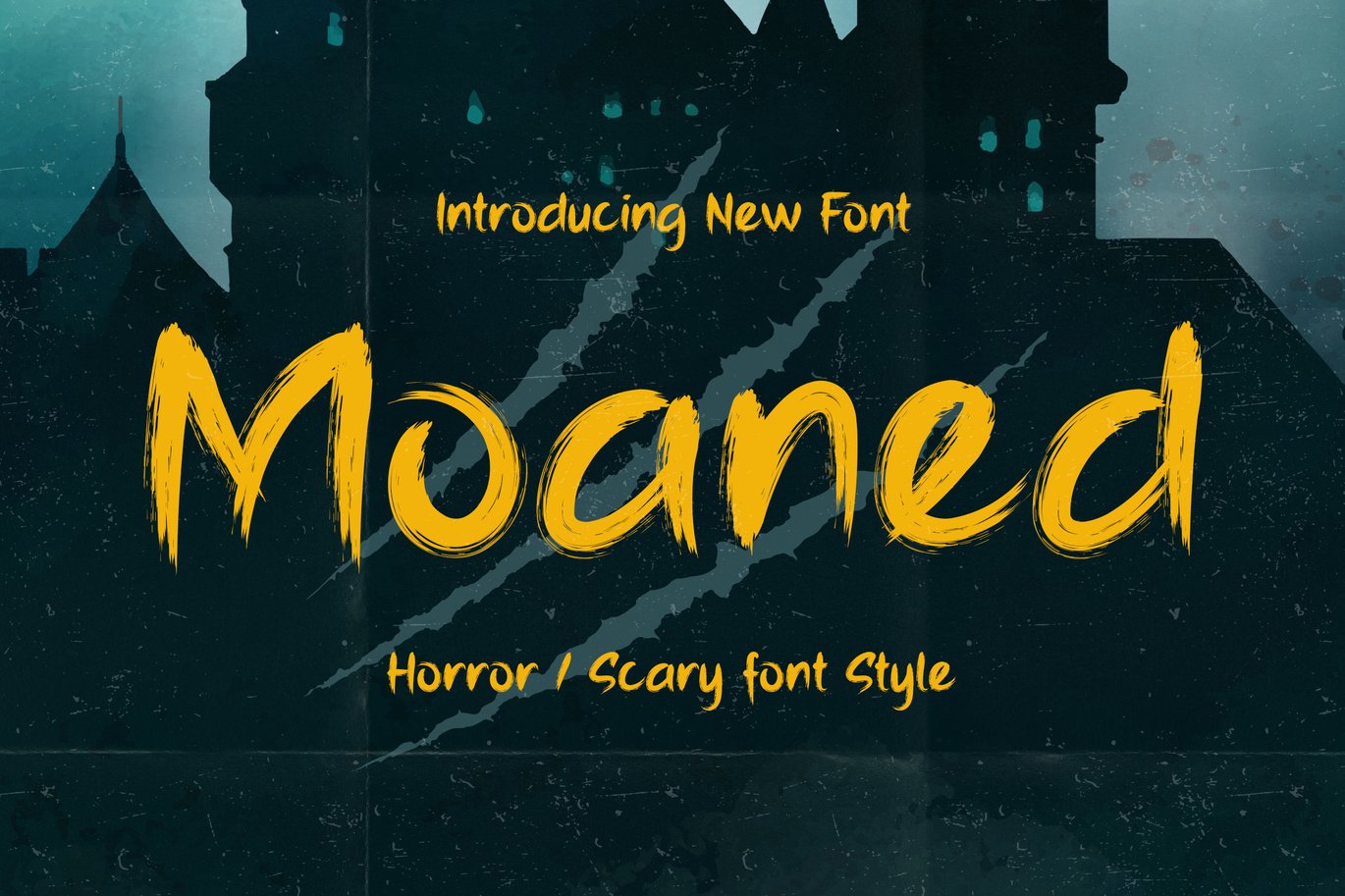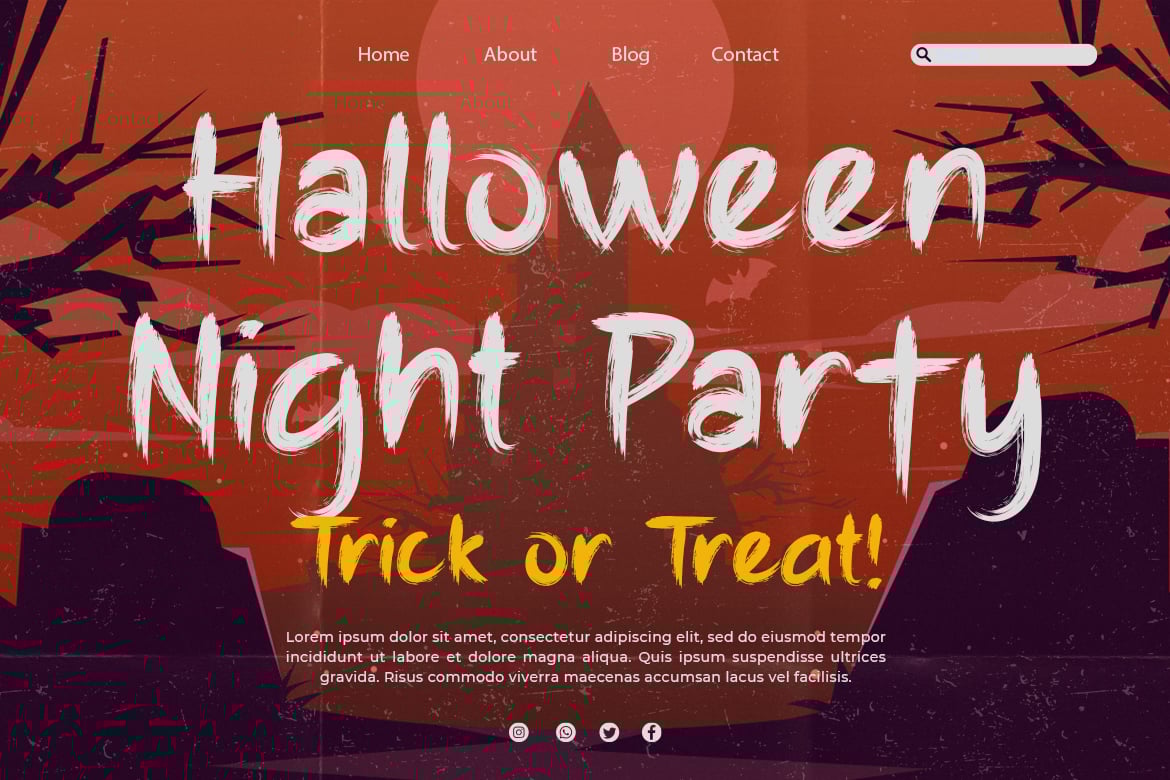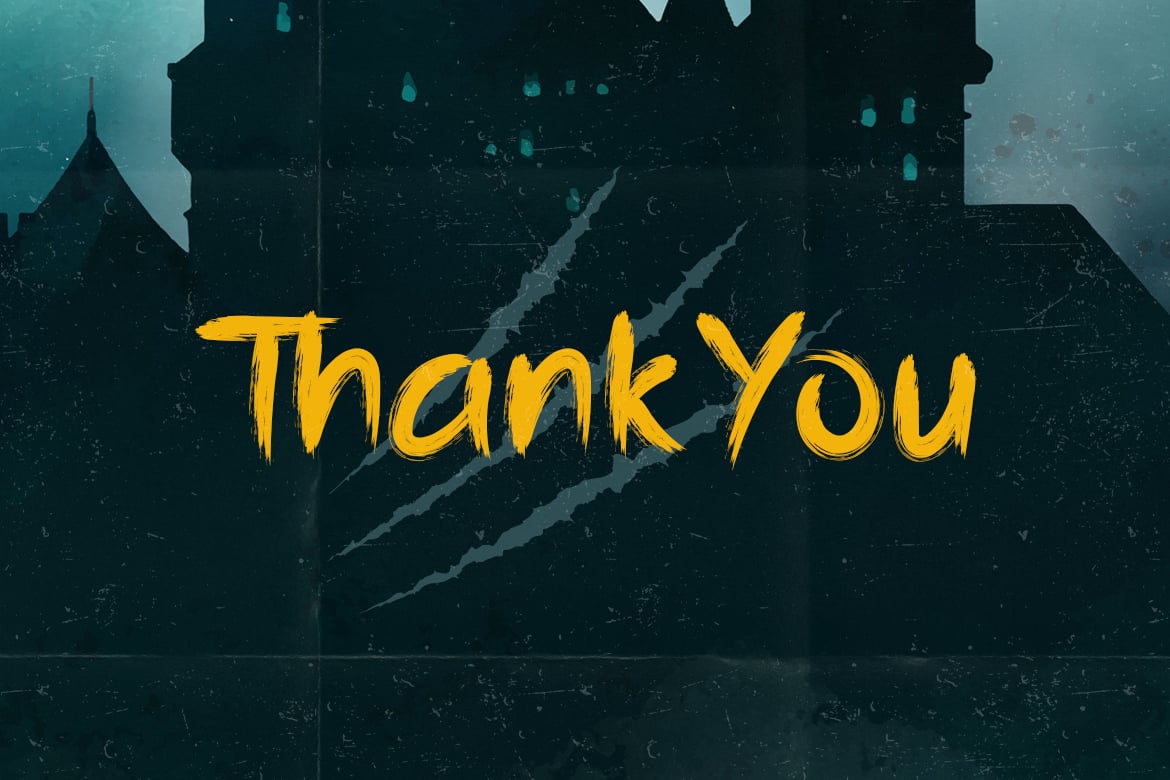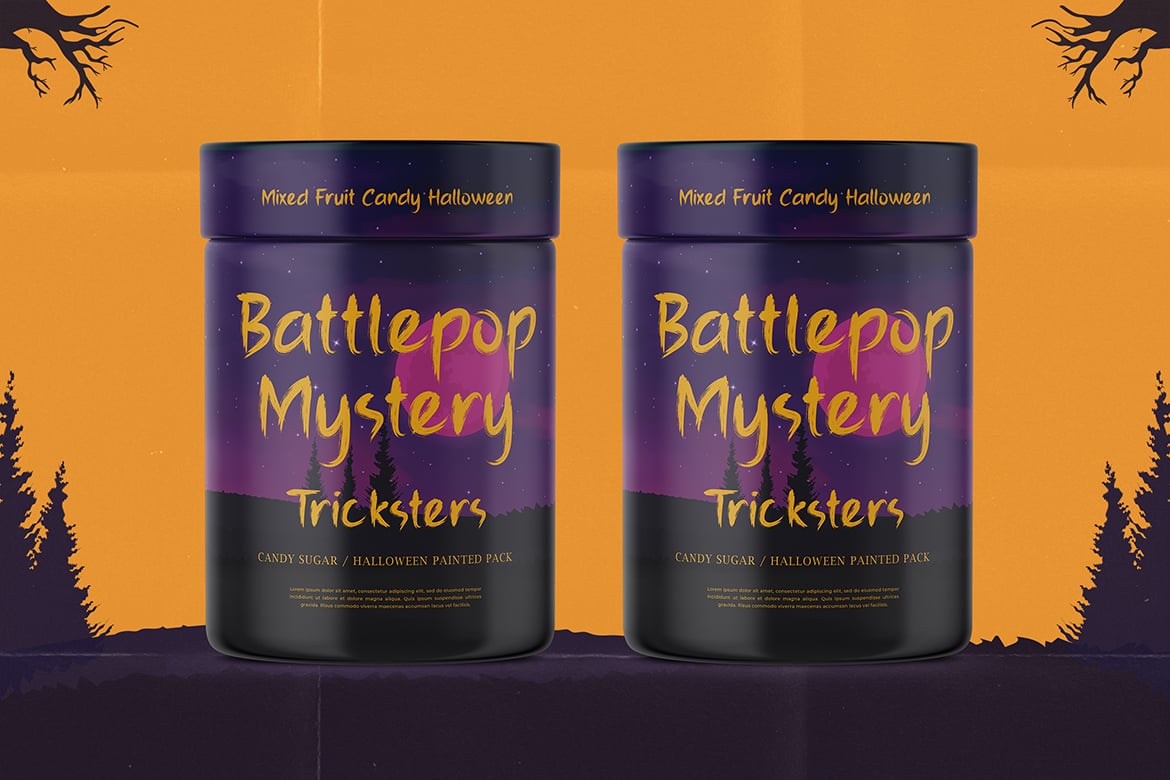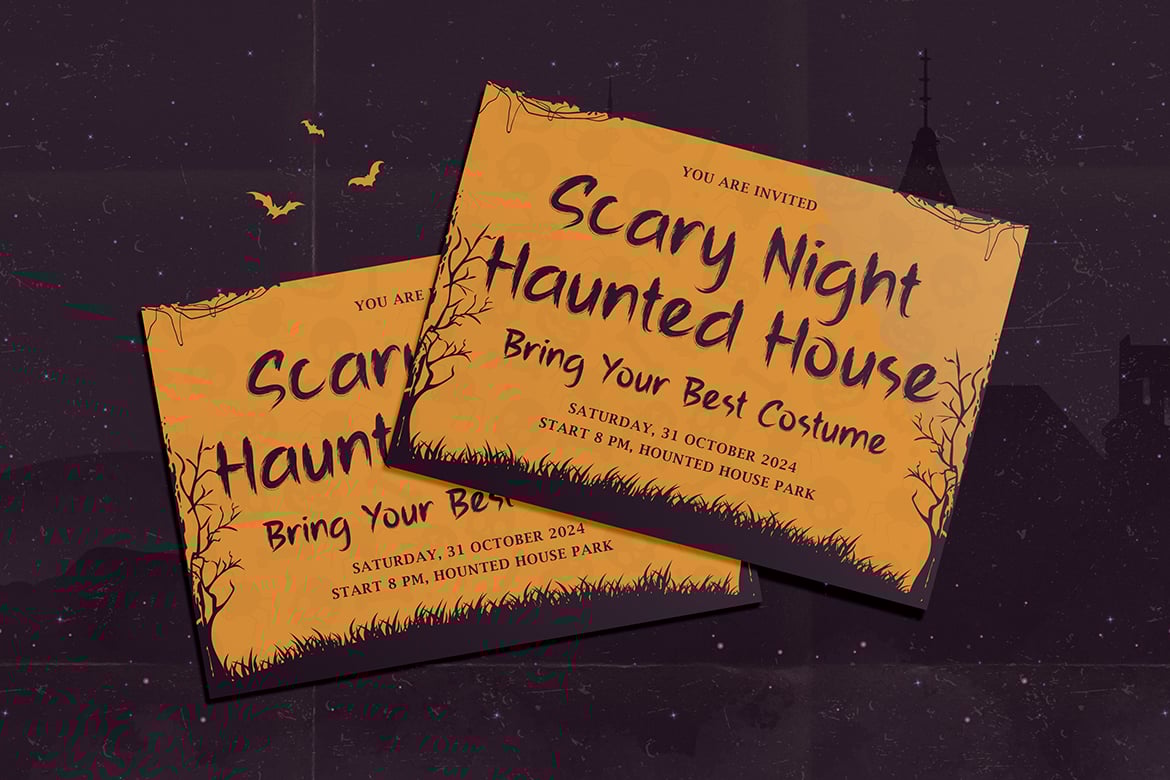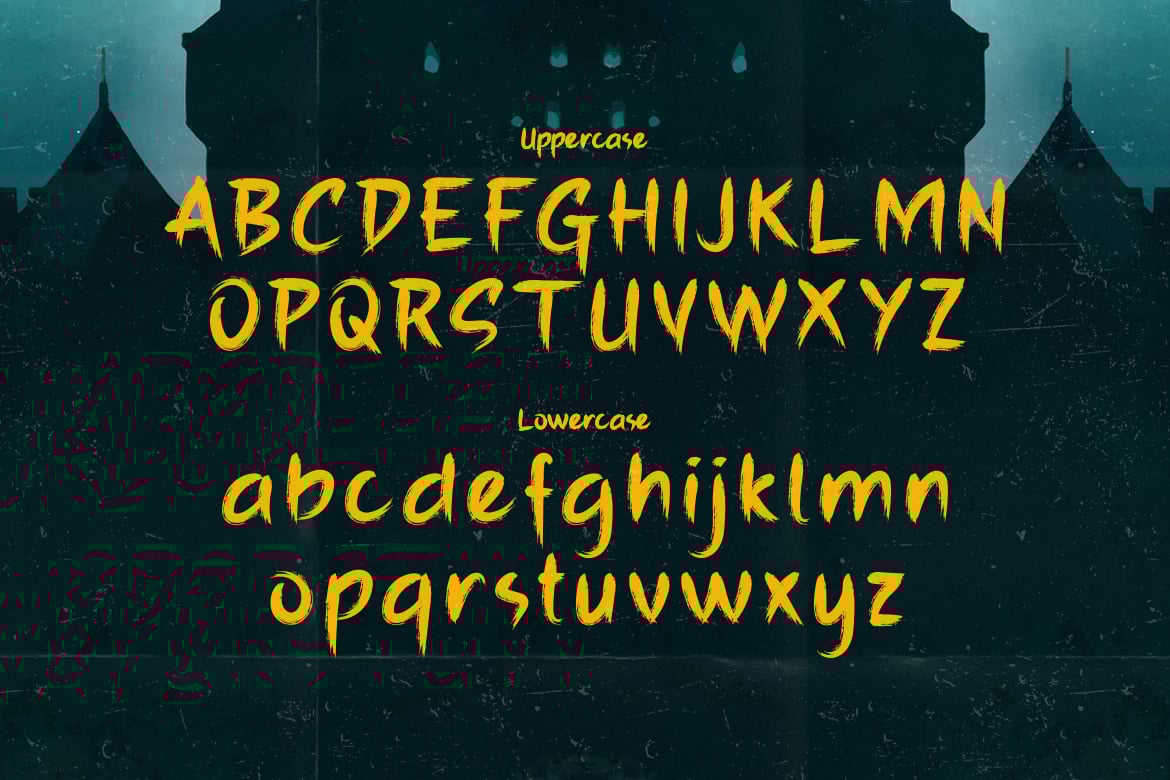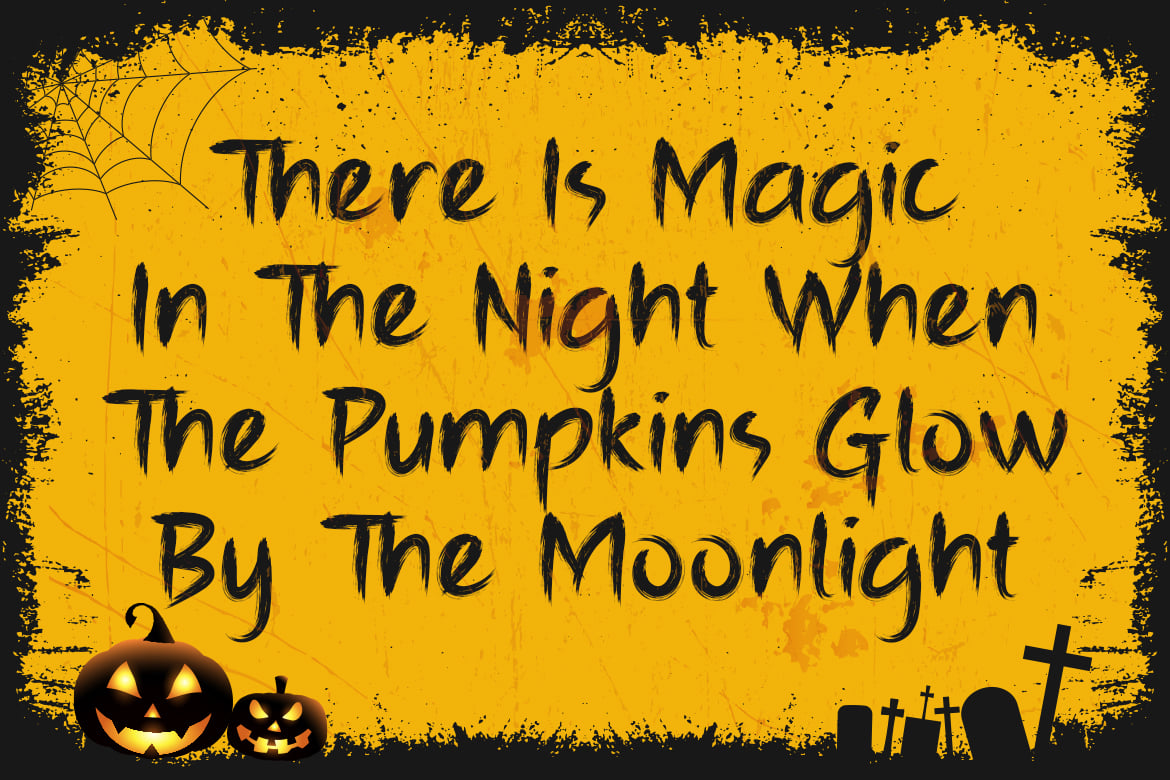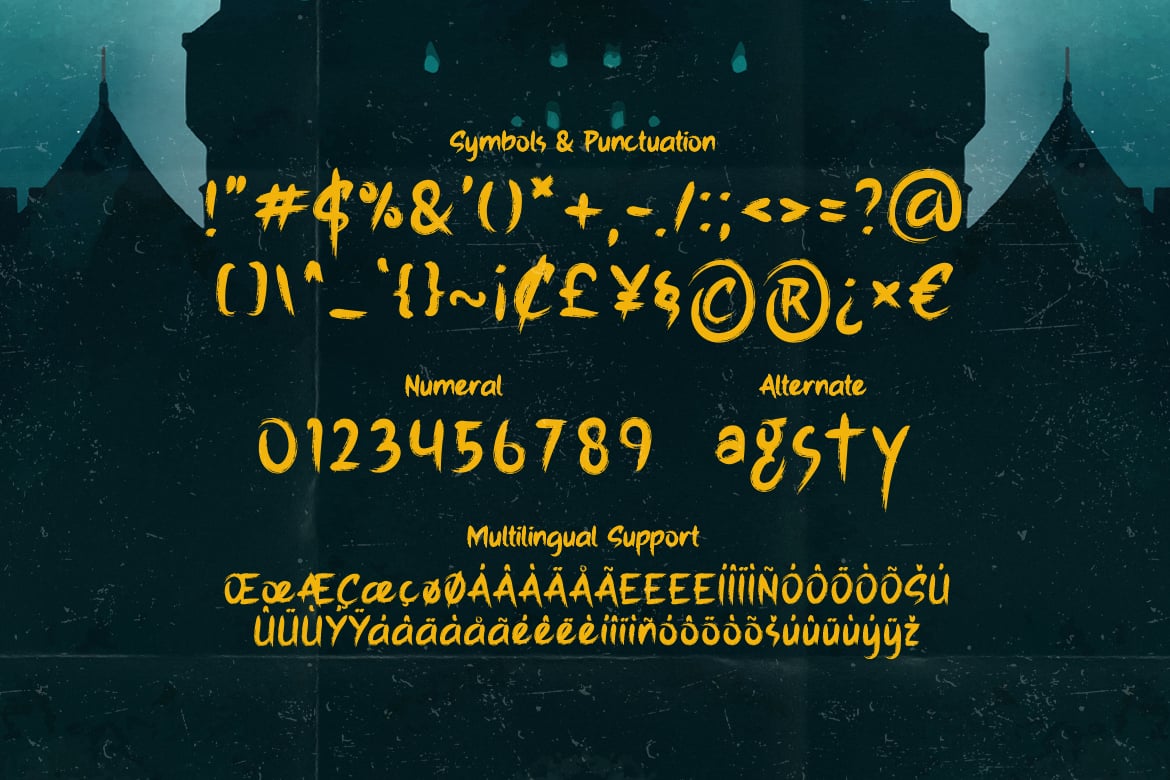
Moaned – Horror Scary Font
Moaned is a dark, horror looking display font.
Add it to your scary crafts, horror movie posters, t-shirts and anything else that requires a spectacular look.